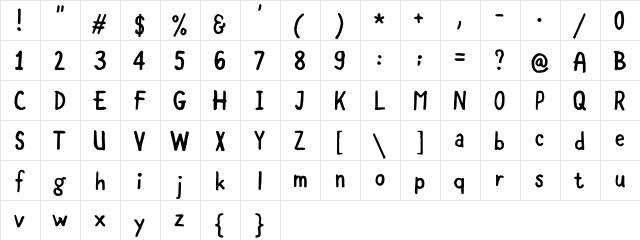
coolstory regular Regular
| Foundry | Cruzine |
| Designer | Cruzine |
Design Context for coolstory regular Typeface
coolstory regular is a composed and adaptable typeface that performs quietly and consistently across a wide range of design contexts.